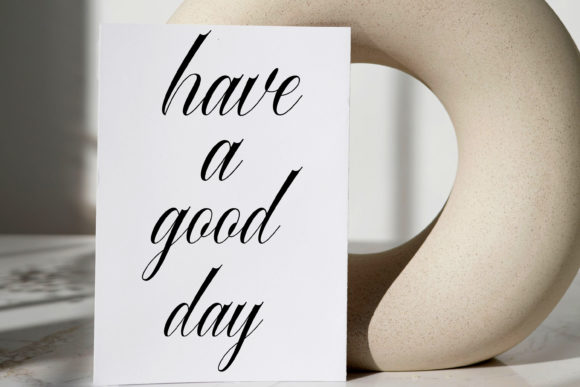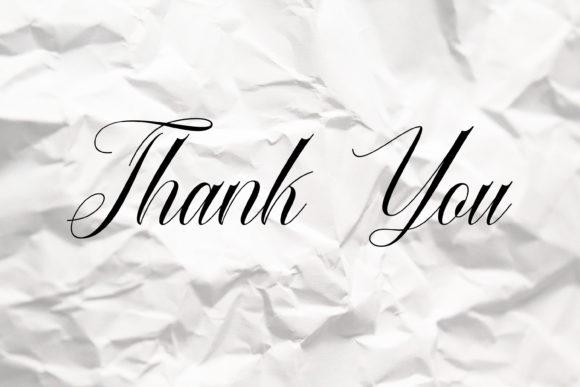
Introducing Beside Font: Elevate Your Designs with Elegance and Sophistication
In the world of design, typography plays a crucial role in conveying the tone and aesthetic of a project. For designers and crafters seeking a font that exudes high-quality vibes, Beside Font is an exceptional choice. This free-flowing script font is meticulously crafted to enhance packaging products, invitation cards, flyers, mockups, event posters, and a wide range of design applications.
What Makes Beside Font Stand Out?
Beside Font boasts a beautiful and balanced character that seamlessly integrates with a large design pool. Its unique, flowing script style adds a touch of elegance and sophistication to any project. The font’s design ensures that it remains legible and visually appealing, even at various sizes, making it incredibly versatile for different design needs.
Key Features of Beside Font
- Free-Flowing Script Style: Beside Font features a smooth, connected script style that adds a dynamic and modern touch to designs.
- High-Quality Aesthetic: Perfect for projects that demand a premium look, Beside Font delivers high-quality vibes that elevate the overall design.
- Balanced Character: The font’s characters are carefully designed to be balanced, ensuring that words and sentences flow harmoniously.
- Versatility: Suitable for a wide range of applications, from packaging and invitations to flyers and event posters.
- Legibility: Despite its elegant and flowing nature, Beside Font maintains excellent legibility, making it suitable for both headings and body text.
Applications of Beside Font
The versatility of Beside Font makes it an excellent choice for various design projects. Here are some of the ideal applications:
- Packaging Products: Enhance your product packaging with a sophisticated and modern look that stands out on store shelves.
- Invitation Cards: Create elegant and inviting cards for weddings, parties, and corporate events.
- Flyers: Design eye-catching flyers for promotions, events, or informational purposes with a professional touch.
- Mockups: Use Beside Font to add a realistic and high-end feel to your mockups, making them more compelling.
- Event Posters: Design stunning posters for concerts, exhibitions, or conferences that capture attention and convey class.
Tips for Using Beside Font Effectively
To maximize the impact of Beside Font in your designs, consider the following tips:
- Pair with Complementary Fonts: Combine Beside Font with clean, sans-serif fonts for contrast and visual interest.
- Adjust Letter Spacing: Fine-tune the letter spacing to ensure optimal readability and aesthetic appeal.
- Utilize Size Variations: Use different font sizes to create hierarchy and emphasize key information.
- Experiment with Colors: While Beside Font looks great in black or dark colors, don’t hesitate to experiment with colored text to match your design theme.
Beside Font is a versatile and elegant script font designed to bring a touch of sophistication and high-quality vibes to your designs. Its balanced character, free-flowing style, and wide range of applications make it an invaluable asset for designers and crafters. Whether you’re working on packaging, invitations, flyers, or event posters, Beside Font is sure to elevate your projects to new heights. Explore the creative possibilities with Beside Font and discover how it can transform your designs.